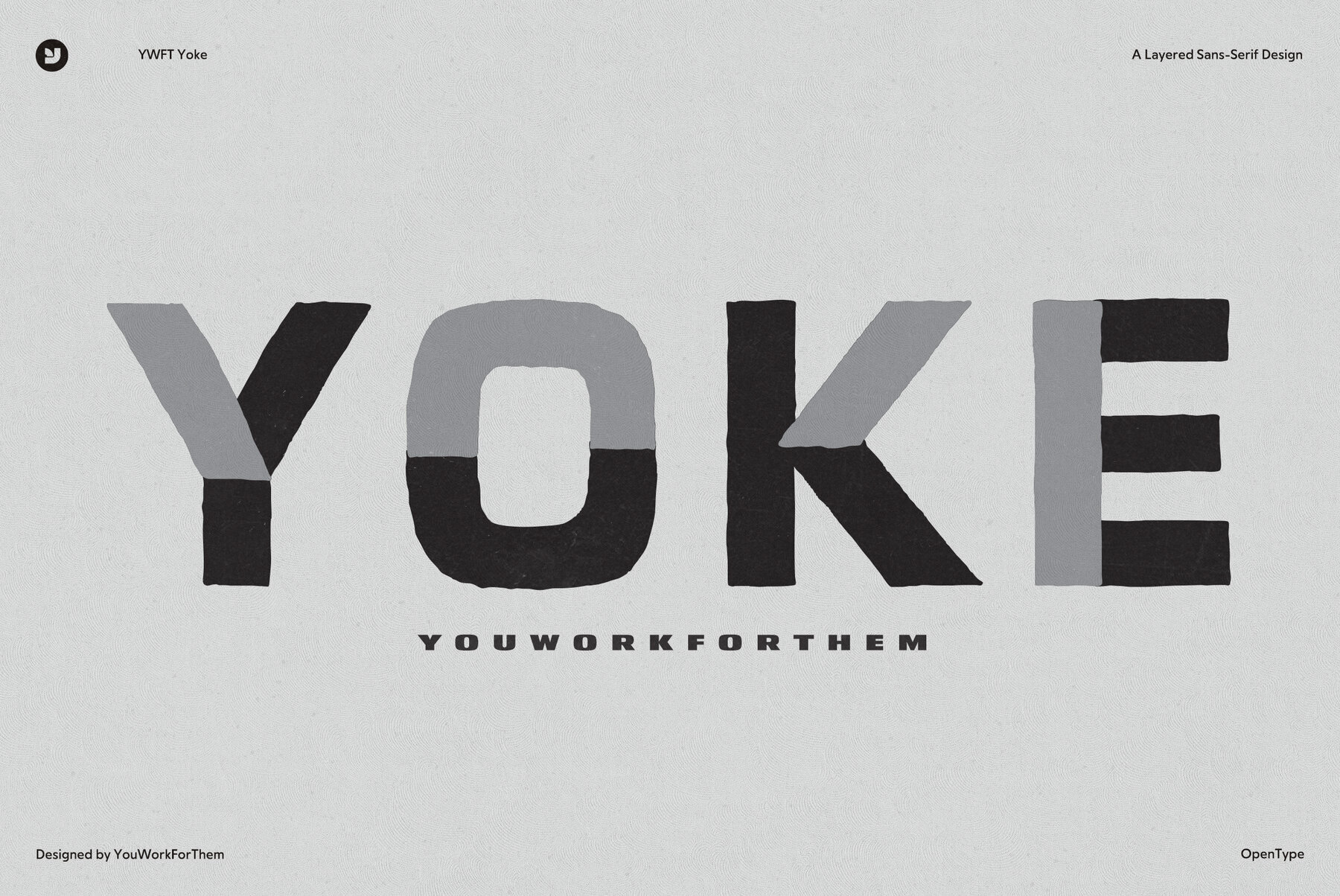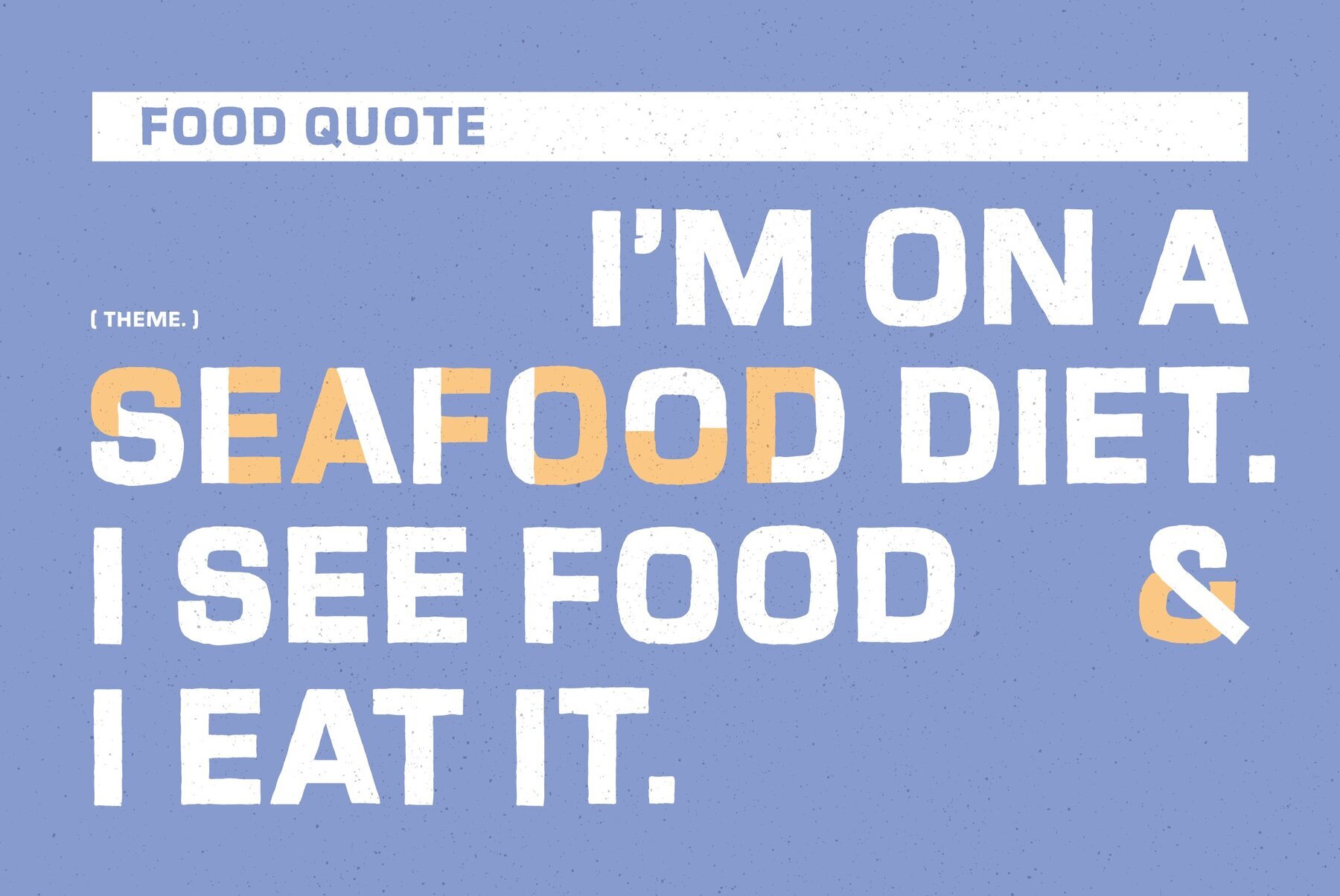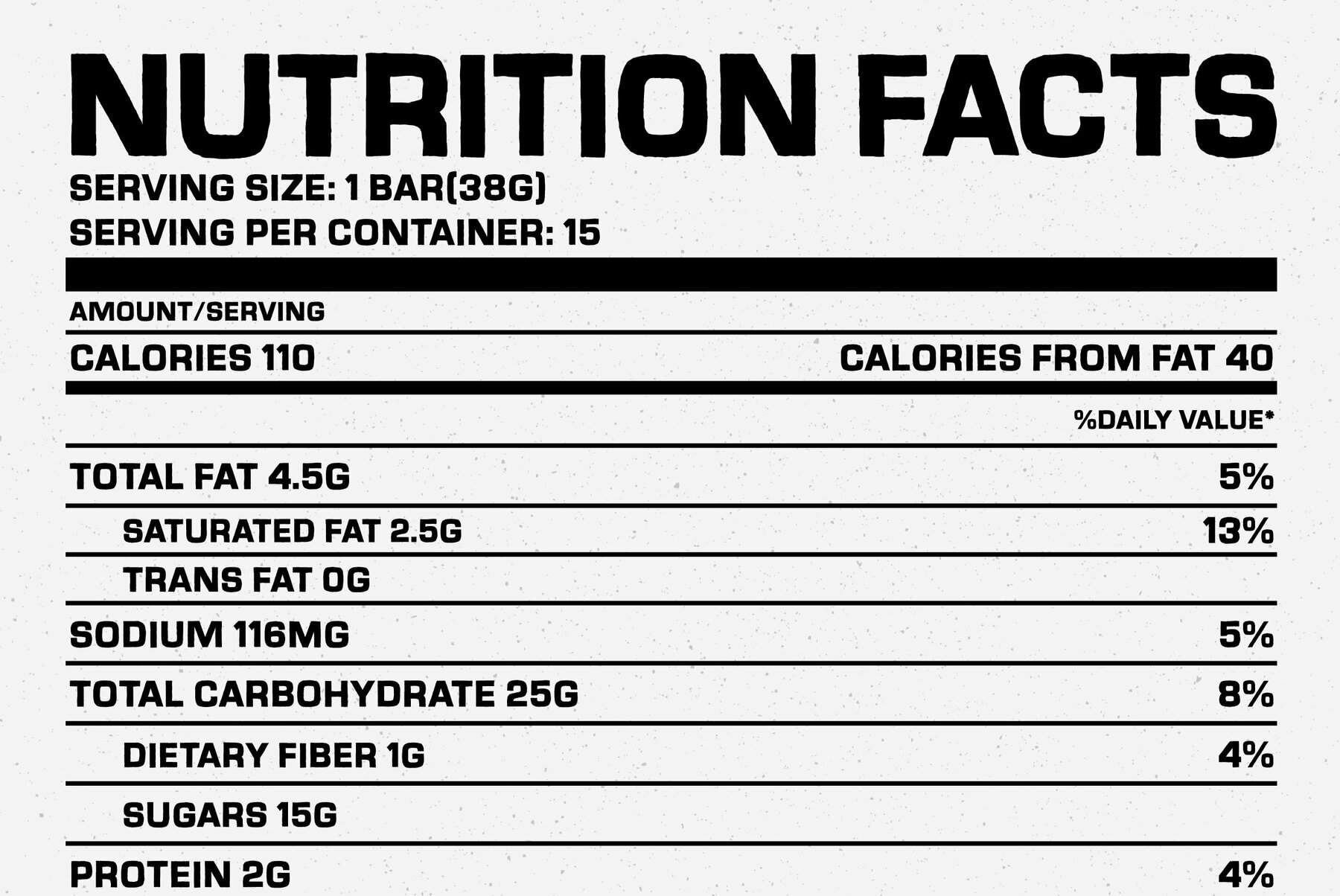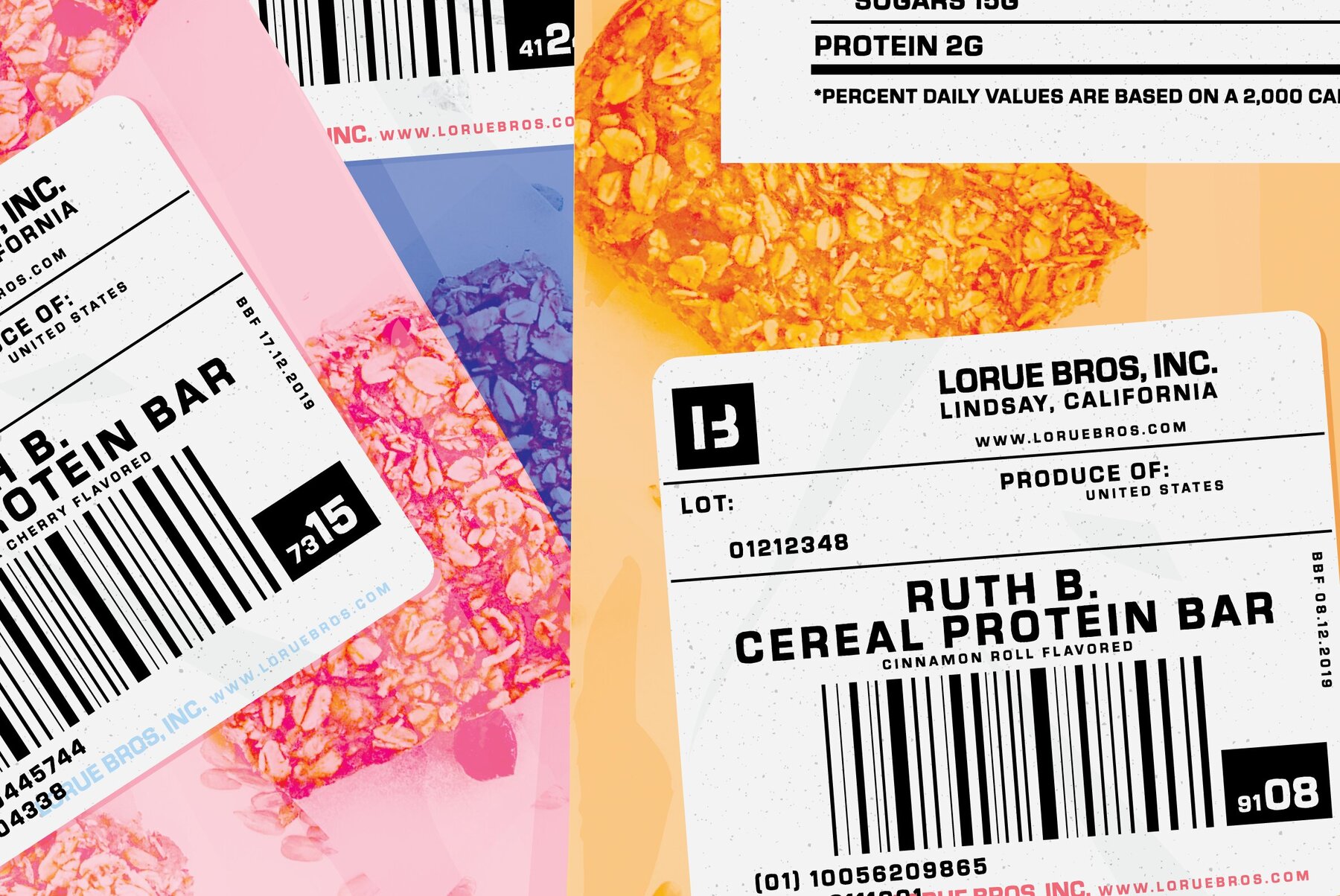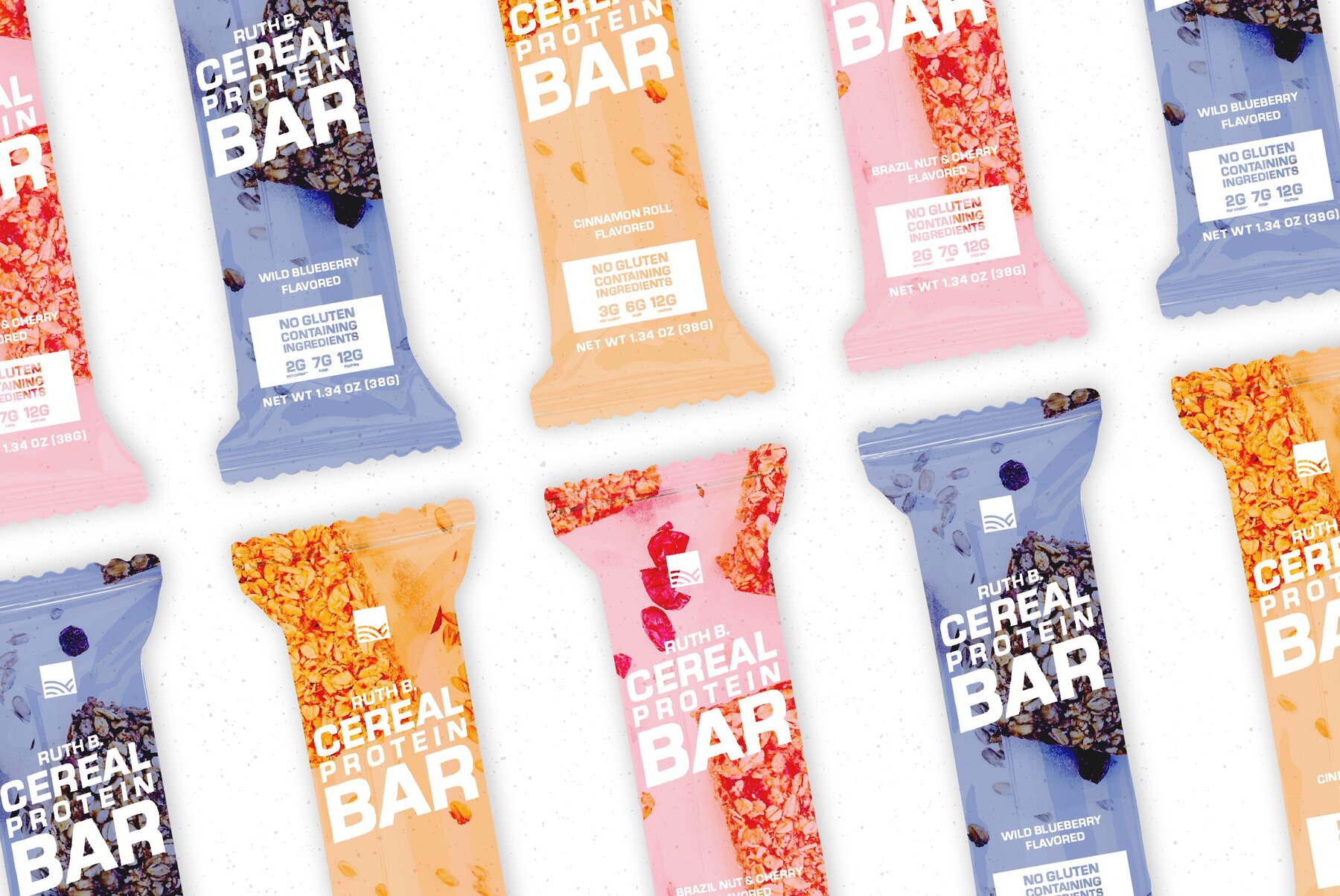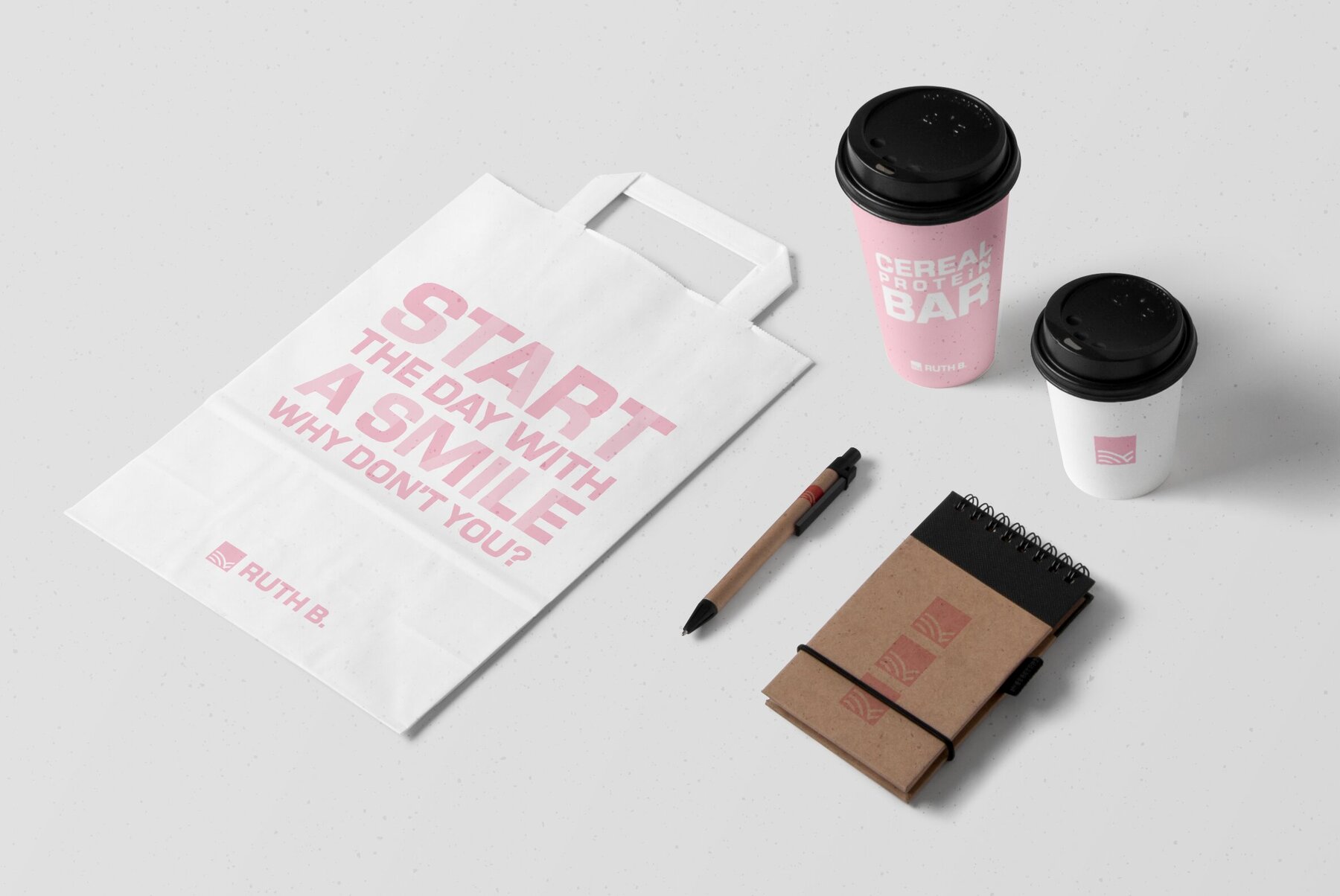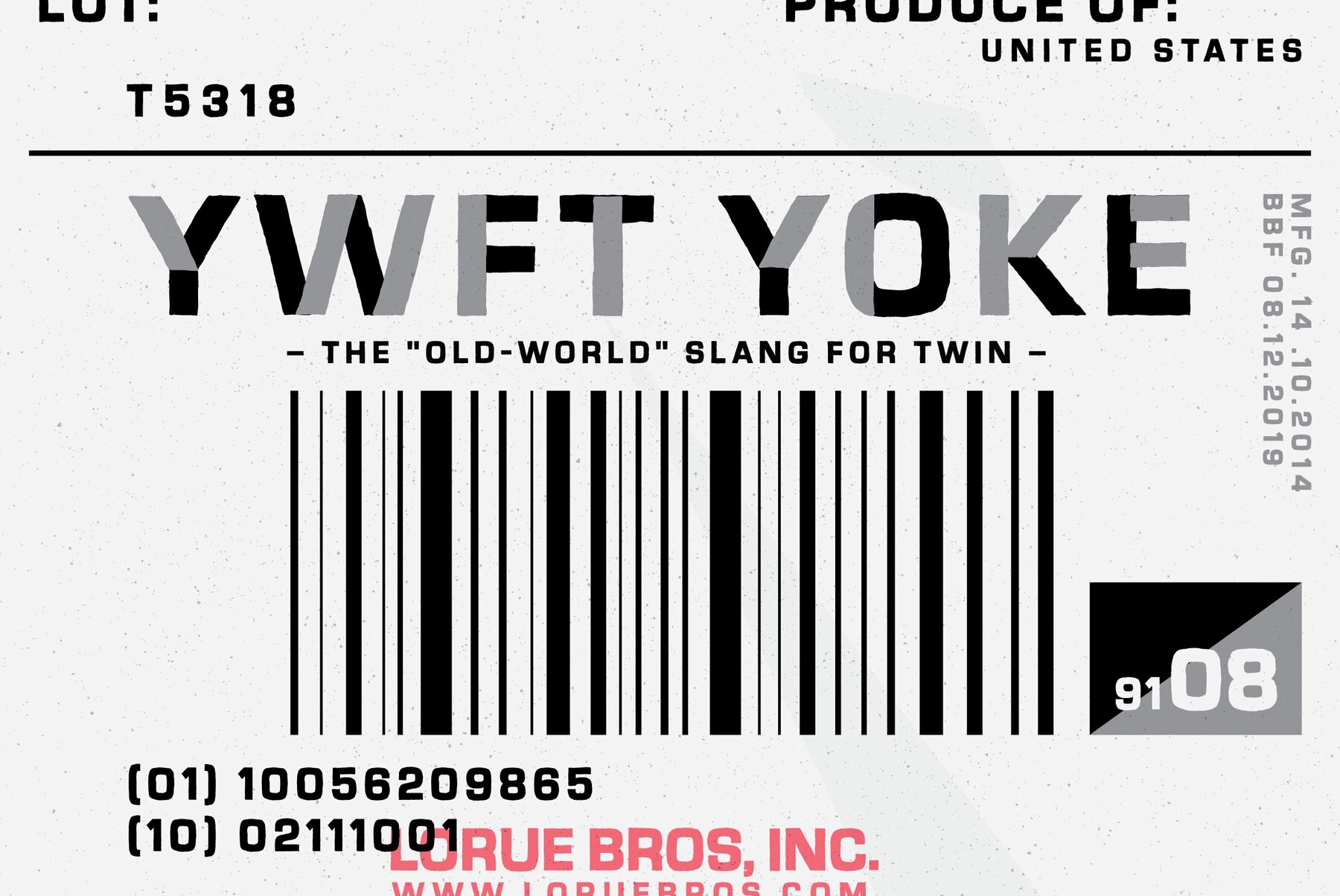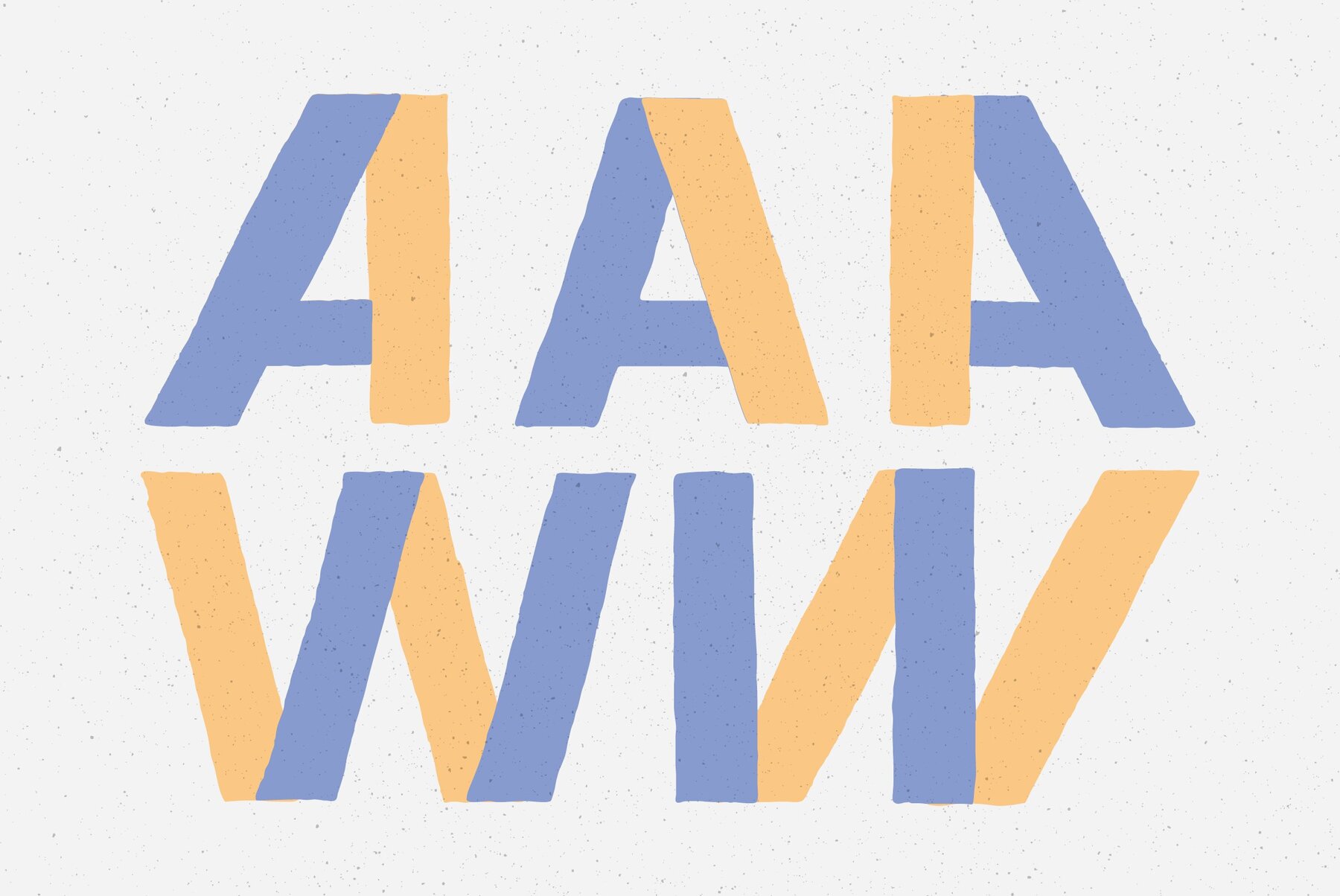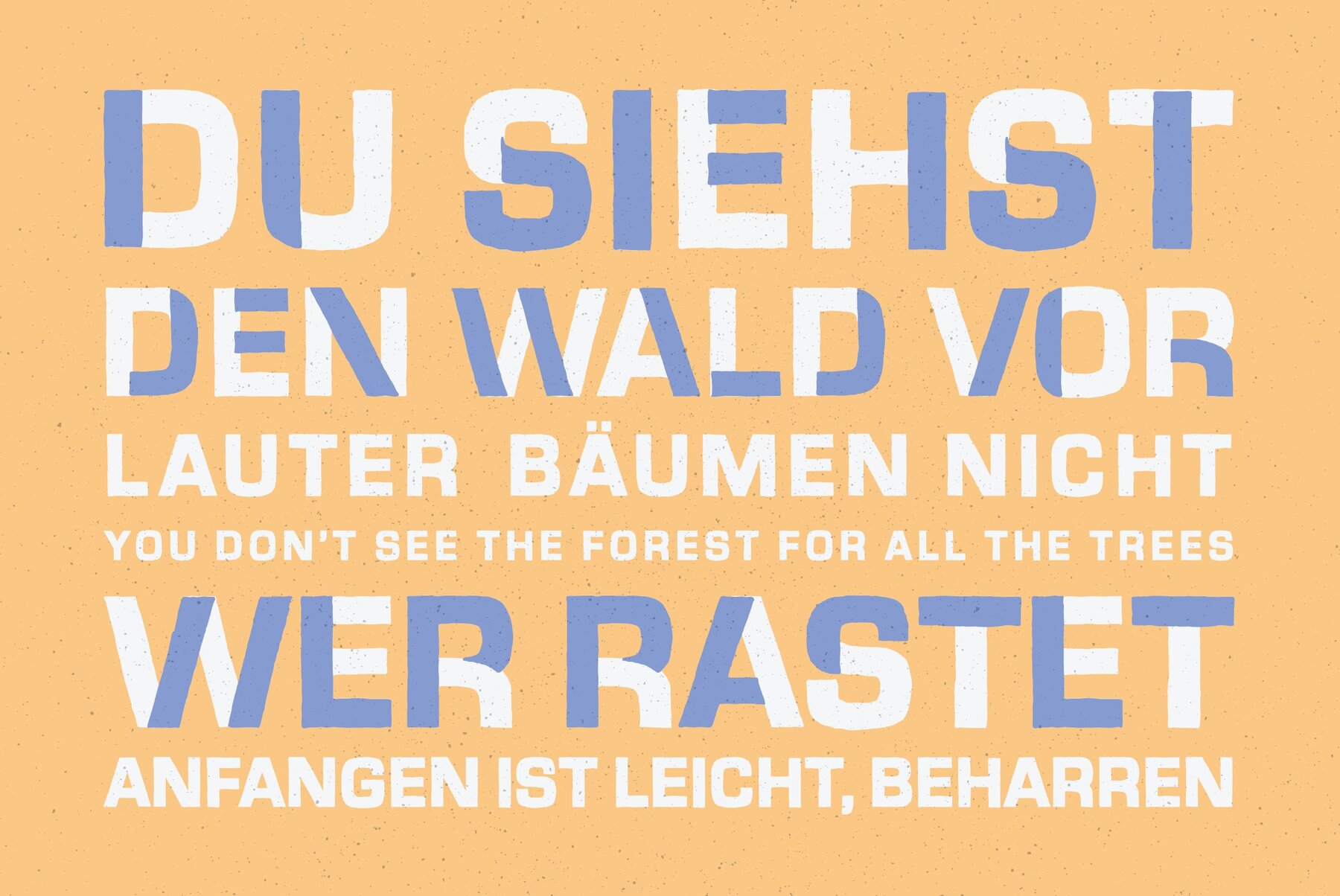
YWFT Yoke Font
A yoke is the "old-world" slang for twin, or double, or duplex, since it turned two oxen from independent operators into a powerful two-ox team. And if you ever plowed a ten-acre bean field by hand, you know how important ox management can be. That teamwork of two-as-one is the basis for this layering font constructed from individual typographic components. With the right color applied, the stems and arms become rhythmic abstract patterns. YWFT Yoke comes with three distinct font styles containing over 250 glyphs and OpenType features to give the user plenty of alternates for each letter. For best results, layer the extra styles over the regular weight and adjust colors as needed. YWFT Yoke was originally published as a vector handset by YouWorkForThem in January of 2009. That original handset design (3 eps vector files) is included with this product for free. YWFT Yoke was converted to working OpenType by our friends at PintassilgoPrints in 2014.